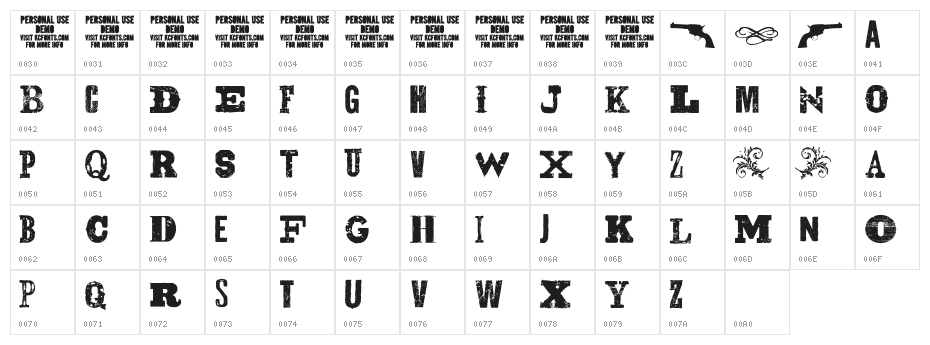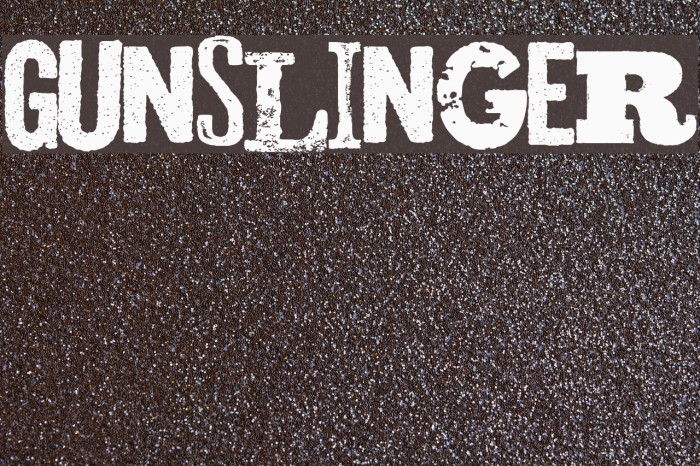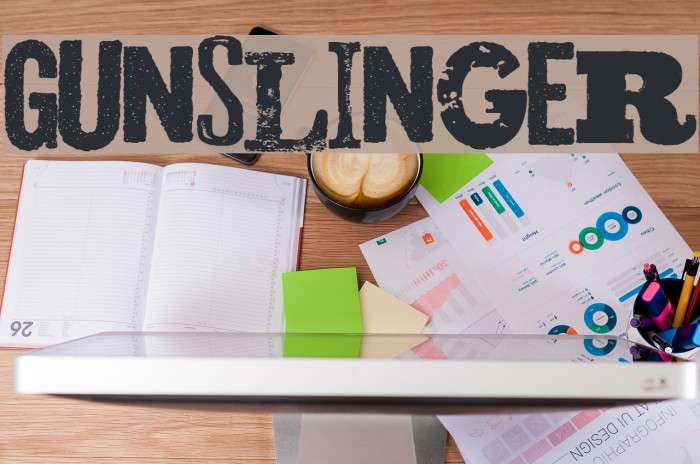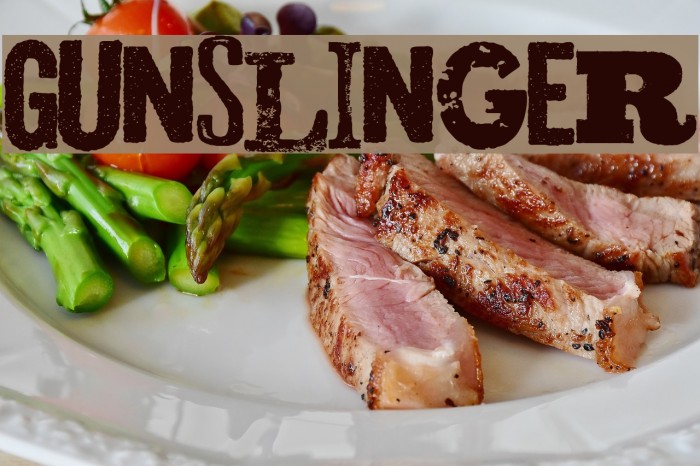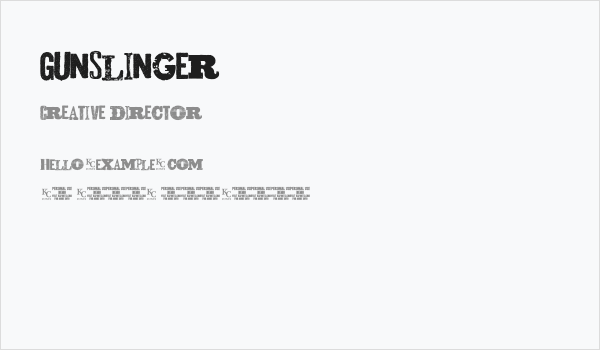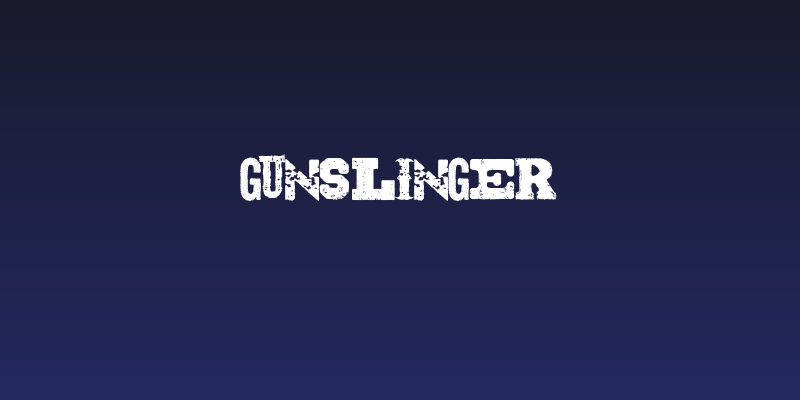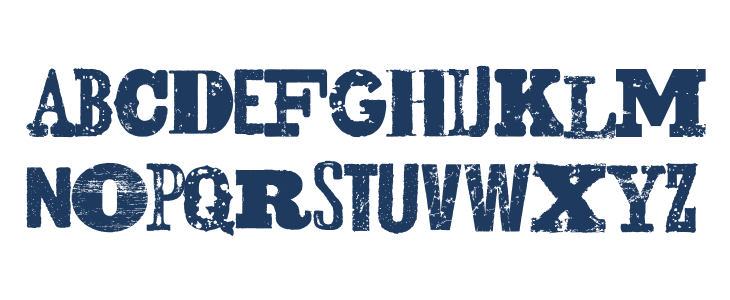
Gunslinger Font
Gunslinger Description
This font features a bold, distressed style that evokes a rugged, vintage aesthetic. The characters are heavily textured, giving them a worn and weathered appearance, reminiscent of old western signage or vintage posters. The uppercase letters are prominent and impactful, making them ideal for creating eye-catching headlines or titles. The font's unique texture adds a sense of depth and character, making it suitable for designs that require a touch of nostalgia or a gritty, rustic feel. Its bold presence ensures that it stands out in any design, while the distressed detailing adds an element of authenticity and charm.
| Proposed Projects | Ideal for vintage posters, western-themed designs, branding, and eye-catching headlines. |